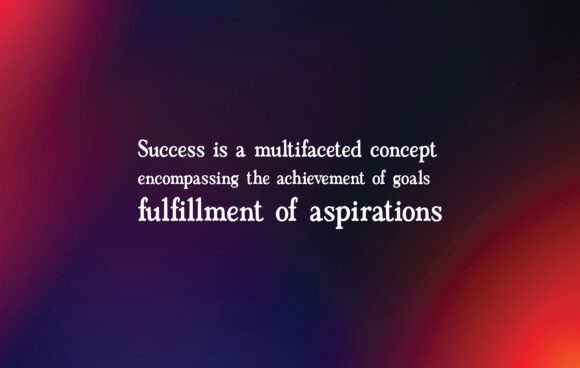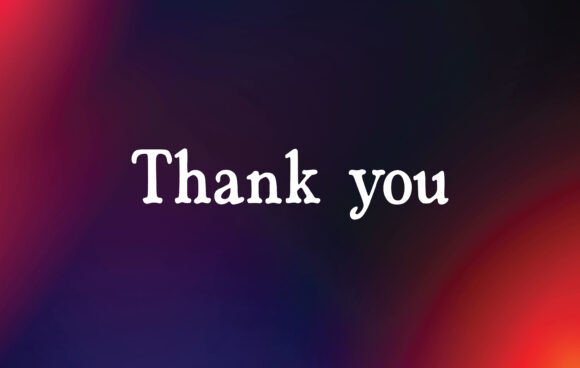
The Magic of Billie Font: Elevate Your Designs with this Lovely Handwritten Font
I’ll never forget the time I was working on a branding project for a new coffee shop. I had a clear vision of what I wanted to achieve, but something was missing – the perfect font. I scrolled through page after page of Google search results, but nothing seemed quite right. That was until I stumbled upon Billie Font. ✨
Billie is a lovely and beautiful handwritten font that has the potential to take your creative ideas to the highest level. It’s the best choice for creating eye-catching logos, branding, and quotes. In this article, I’ll share my experience with Billie Font, its features, and how to make the most of it in your designs.
An Honest Review of Billie Font
What I Love About Billie Font
• 💫 Unique and elegant handwritten style that’s perfect for creative projects
• ✨ Beautifully crafted to add a touch of sophistication to your designs
• 🌈 Versatile and works well for a wide range of design applications
While Billie Font is an excellent choice, there are a few things to keep in mind: 🤔
• ⚠️ Some users may find the font a bit too ornate for very formal or traditional designs
• ⚠️ Limited availability of certain characters or glyphs, but this can be addressed with OpenType features
The Story Behind Billie Font
Billie Font was designed with the intention of creating a beautiful and elegant handwritten font that would inspire creativity. The designer aimed to craft a font that would be both unique and legible, making it perfect for a wide range of design applications.
Q: What type of designs is Billie Font best suited for?
A: Billie Font is perfect for creative projects, such as logos, branding, quotes, and social media graphics.